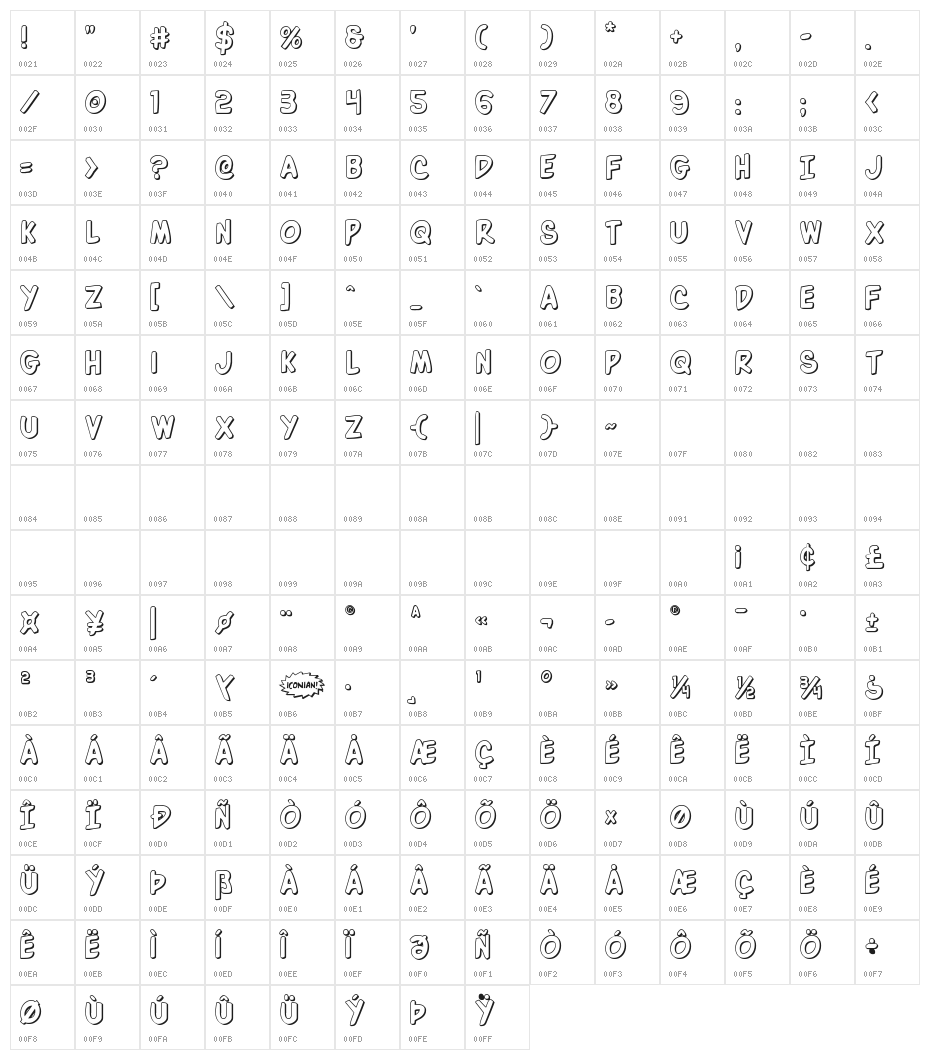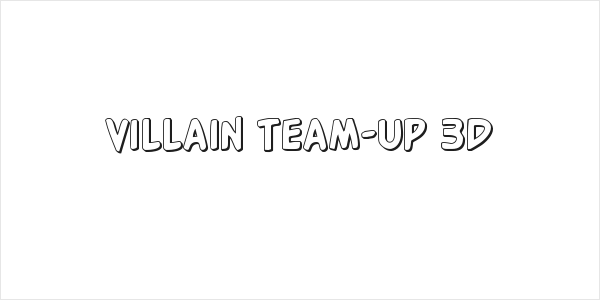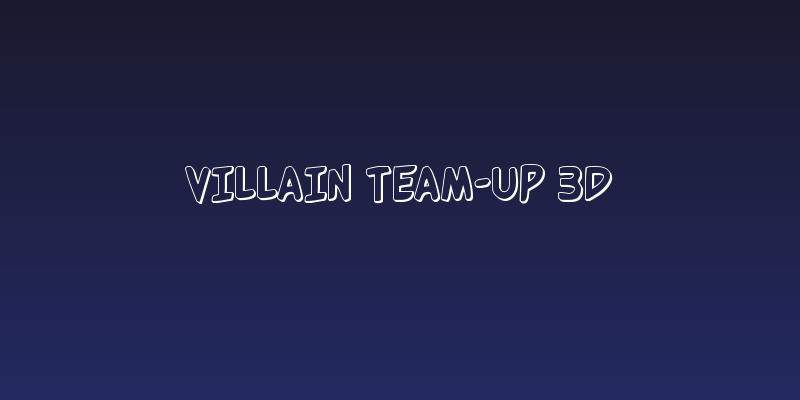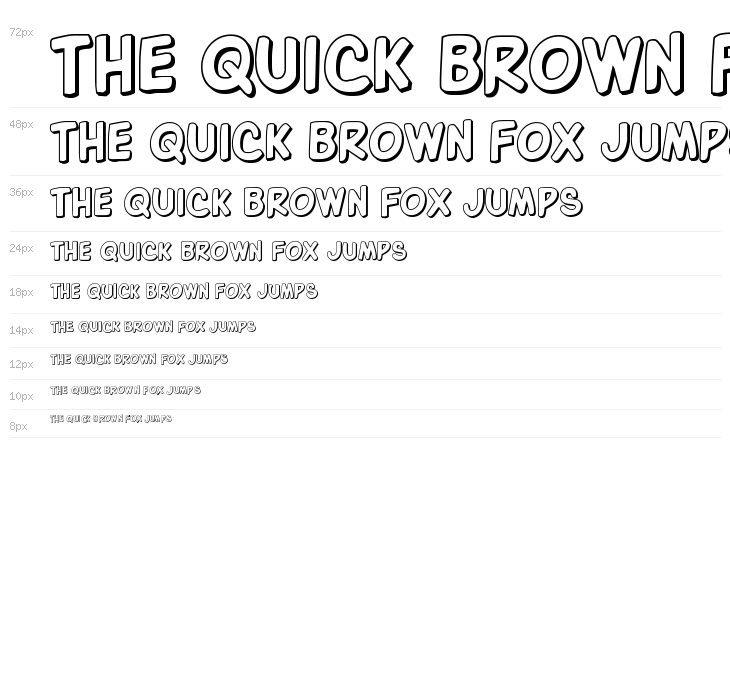
Villain Team-Up 3D Font
Villain Team-Up 3D Description
This font features a bold and playful style with a three-dimensional effect that gives it a unique, eye-catching appearance. The letters are rounded and have a cartoonish feel, making them ideal for designs that require a fun and lively touch. The thick outlines enhance the 3D effect, providing depth and a sense of movement. The characters are evenly spaced, ensuring readability while maintaining a whimsical aesthetic. This font is perfect for projects that aim to capture attention and convey a sense of excitement and creativity.
| Overall Style | Playful, Cartoonish, 3D |
| Use Case | Headlines, Posters, Branding |
| Proposed Projects | Ideal for comic books, children's posters, playful branding, and eye-catching headlines. |